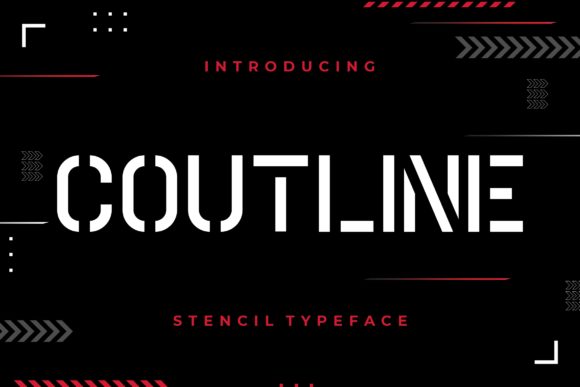
Introducing the Coutline Stencil Typeface Font - your ultimate weapon in achieving a modern and edgy look! Created by the renowned CreatypeStudio, this font is a game-changer for anyone seeking to leave a lasting impression.
Drawing inspiration from military design and urban graffiti, Coutline boasts a powerful and captivating aesthetic that will elevate your branding projects to new heights. Whether you're crafting a logo, designing a wedding invitation, or creating social media posts, this font will inject an undeniable sense of style and attitude.
With its all caps sans serif format, Coutline exudes strength and boldness, making it the perfect choice for advertisements, product packaging, and label designs. Imagine the impact it will have on your photography, watermarks, and stationery - each stroke leaving a lasting imprint on your audience's mind.
But what sets Coutline apart from the rest is its versatility. Packed with a plethora of glyphs and swashes, this font allows for endless customization options. Thanks to its PUA encoding, accessing these artistic flourishes is a breeze, enabling you to effortlessly add a touch of elegance and uniqueness to your creations.
When you choose Coutline, you're not just choosing a font - you're choosing to make a statement. Embrace the exhilarating energy and rebellious spirit of this font, and watch as it transforms your designs into irresistible works of art.
Don't settle for ordinary. Embrace the extraordinary with Coutline Stencil Typeface Font. Take your projects to the next level and captivate your audience with this stunning font that effortlessly merges military precision and urban creativity. Get ready to make a lasting impression and leave your mark on the world of design. Download Coutline now and unlock a world of possibilities.